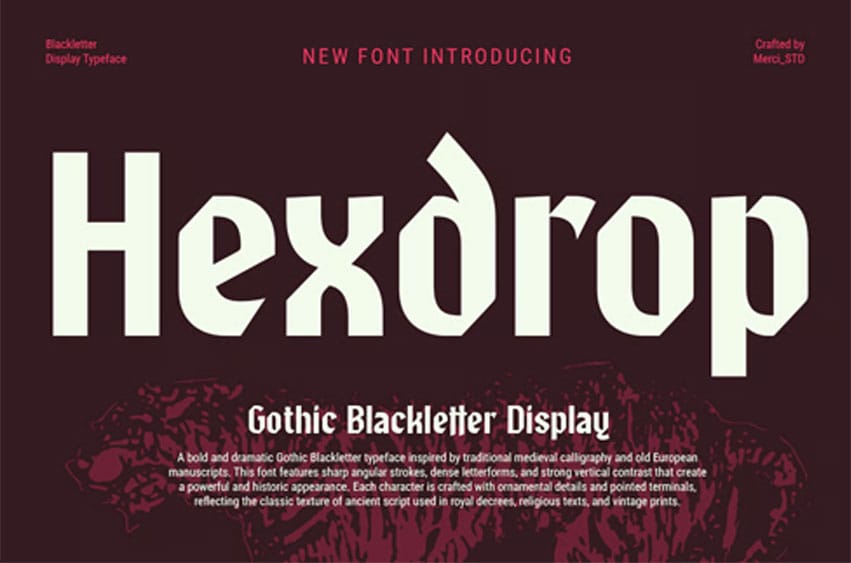
Hexdrop Font is a modern gothic blackletter font combining traditional forms with contemporary style. Ideal for bold branding, posters, and edgy design projects.
- Uppercase Letters
- Ligature & Alternate Character
- Unique Hand-Drawn Style